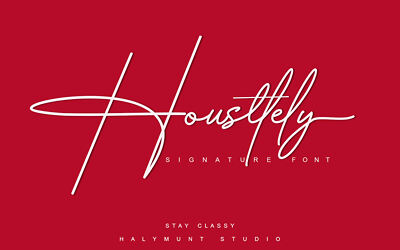
Signature Collection is a stylish modern handwritten font with natural signature style.
Signature Collection font is perfectly fits for personal branding, watermarks, fashion, social media, letters, cards and other projects.